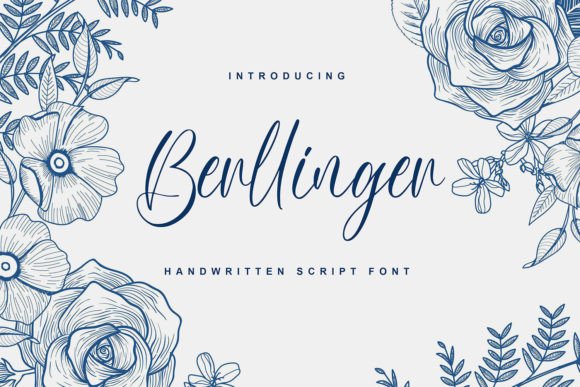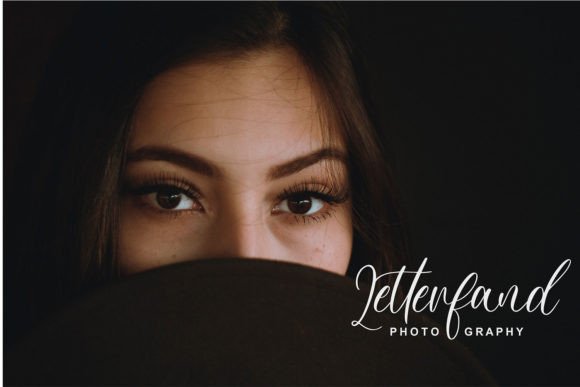
About Berllinger Font
Berllinger is a thin handwritten font made in a modern style and also a type of font that is trending among designers today, with a luxurious appearance that will make your designs attractive!
In addition, this Berllinger font is also very suitable for advertising text, book covers, logos, mock-ups, watermarks, magazines, food designs, products, headers, coffee logos, brands, films, columns, videos, and imagination.